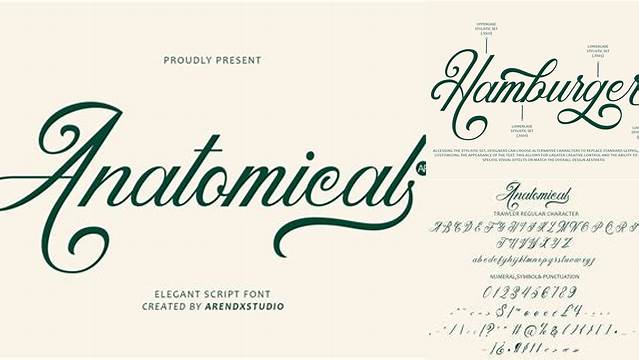
Free Elegant Script Fonts: Anatomy & Beauty In Design
Anatomical elegant script fonts are a fantastic way to add a touch of sophistication and personality to your design projects. Whether you're a seasoned designer or just starting out, finding the perfect font can make all the difference. Today, we'll dive into the world of free anatomical elegant script fonts, exploring their unique characteristics, best uses, and where to find them. Get ready to elevate your designs with these beautiful and versatile typefaces!
What Makes Anatomical Elegant Script Fonts Special?
So, what exactly are anatomical elegant script fonts, and what sets them apart? These fonts typically mimic the graceful flow of handwriting, often with a touch of artistic flair. The term "anatomical" in this context doesn't necessarily mean the font is literally depicting human anatomy, but rather that it possesses a sense of organic, natural form and structure, resembling the delicate curves and lines found in the human body. They're all about creating a visual experience that feels both refined and approachable.
Unique Characteristics
One of the key features of anatomical elegant script fonts is their intricate detail. They often include elaborate flourishes, swashes, and ligatures that add visual interest and a touch of luxury. The letterforms are designed to connect seamlessly, creating a sense of fluidity and rhythm. You'll find a wide range of styles within this category, from fonts that are highly formal and calligraphic to those that are more casual and playful. Many of these fonts are inspired by classic calligraphy styles, giving them a timeless appeal. These fonts are not just about the letters themselves; they're about the overall aesthetic they create. The spacing, kerning, and overall design of the letters work together to create a harmonious and visually pleasing effect. They capture the essence of handwritten elegance, making your text feel personal and inviting. Think about the way a skilled calligrapher crafts each letter with precision and artistry. These fonts aim to emulate that same level of skill and care.
Visual Appeal and Versatility
The visual appeal of these fonts is undeniable. They bring a sense of sophistication, elegance, and artistic expression to any design. They can instantly transform a simple design into something special. Because of their inherent elegance, these fonts are highly versatile. They can be used in a wide variety of projects, from wedding invitations and branding to website headers and social media graphics. The inherent beauty of the font will grab attention and enhance the overall design. If you're looking to convey a sense of luxury, creativity, or individuality, anatomical elegant script fonts are an excellent choice. The use of these fonts will set your design apart, creating a memorable visual impact. These fonts are designed to be visually striking, making them perfect for projects where you want to make a statement. These fonts can be adapted to different design styles, allowing you to express your creativity in various ways. Whether you're aiming for a vintage aesthetic or a modern, minimalist look, the right font can help you achieve it.
Best Uses for Anatomical Elegant Script Fonts
Knowing where to use anatomical elegant script fonts is key to maximizing their impact. These fonts are most effective when used strategically, complementing the overall design and message.
Wedding Invitations and Stationery
One of the most popular uses for these fonts is in wedding invitations and stationery. They're perfect for creating a romantic and elegant atmosphere, setting the tone for a special event. The flowing script and intricate details add a touch of luxury and personalization. Using an anatomical elegant script font on invitations will create a sense of romance and sophistication, while ensuring all information is clearly legible. Consider using these fonts for the couple's names, the date, and other important details. It's also a great way to add a touch of personalization to save-the-dates, thank-you cards, and other wedding-related materials. The font's graceful lines and artistic flair will complement the overall design aesthetic, creating a cohesive and visually stunning experience.
Branding and Logos
Anatomical elegant script fonts can also be a great choice for branding and logos. If you're looking to create a sophisticated and memorable brand identity, these fonts can help you achieve that. The unique character of the font can make your brand stand out from the competition. They work particularly well for brands that want to convey a sense of luxury, creativity, or artistic expression. Think about brands in the fashion, beauty, or event planning industries. A well-designed logo using this type of font can communicate your brand's values and personality. The carefully crafted letterforms and flowing script can evoke a sense of trust, sophistication, and artistry, which is perfect for businesses looking to build a strong brand identity.
Website Headers and Headlines
Adding an anatomical elegant script font to your website headers and headlines can make your website much more visually appealing. They instantly draw the eye and create a sense of elegance and sophistication. Choose a font that complements the overall design of your website and aligns with your brand's style. However, avoid using these fonts for body text, as they can be difficult to read in large blocks of text. Using these fonts in headers and headlines is a great way to grab attention. It's also a fantastic way to set the tone and convey your brand's personality. The right font can transform a standard website into a visually stunning experience, elevating your brand's aesthetic.
Social Media Graphics
These fonts can be very useful for social media graphics. Use them for quotes, captions, or other text-based content. They add a touch of personality and style to your posts. You can experiment with different styles to find the perfect fit for your brand and audience. The versatility of these fonts also makes them perfect for social media, where visual appeal is so critical. From elegant Instagram posts to captivating Facebook graphics, you can create eye-catching content. They allow you to showcase your brand's personality and make a lasting impression on your audience.